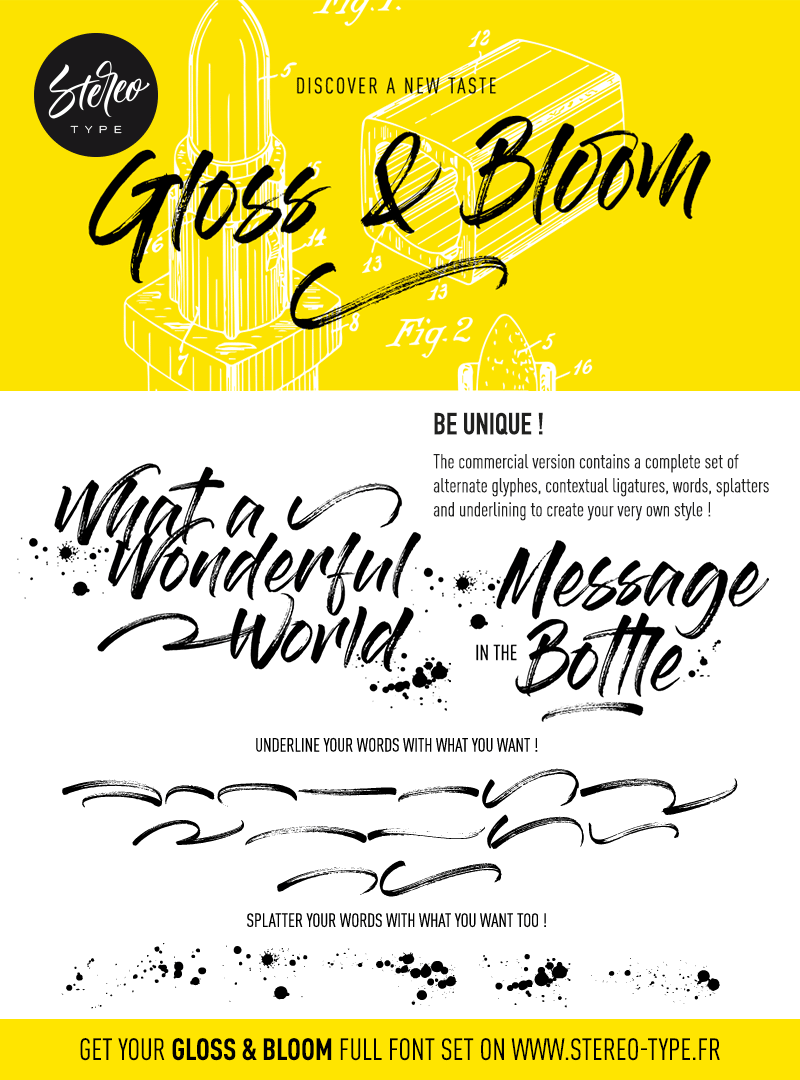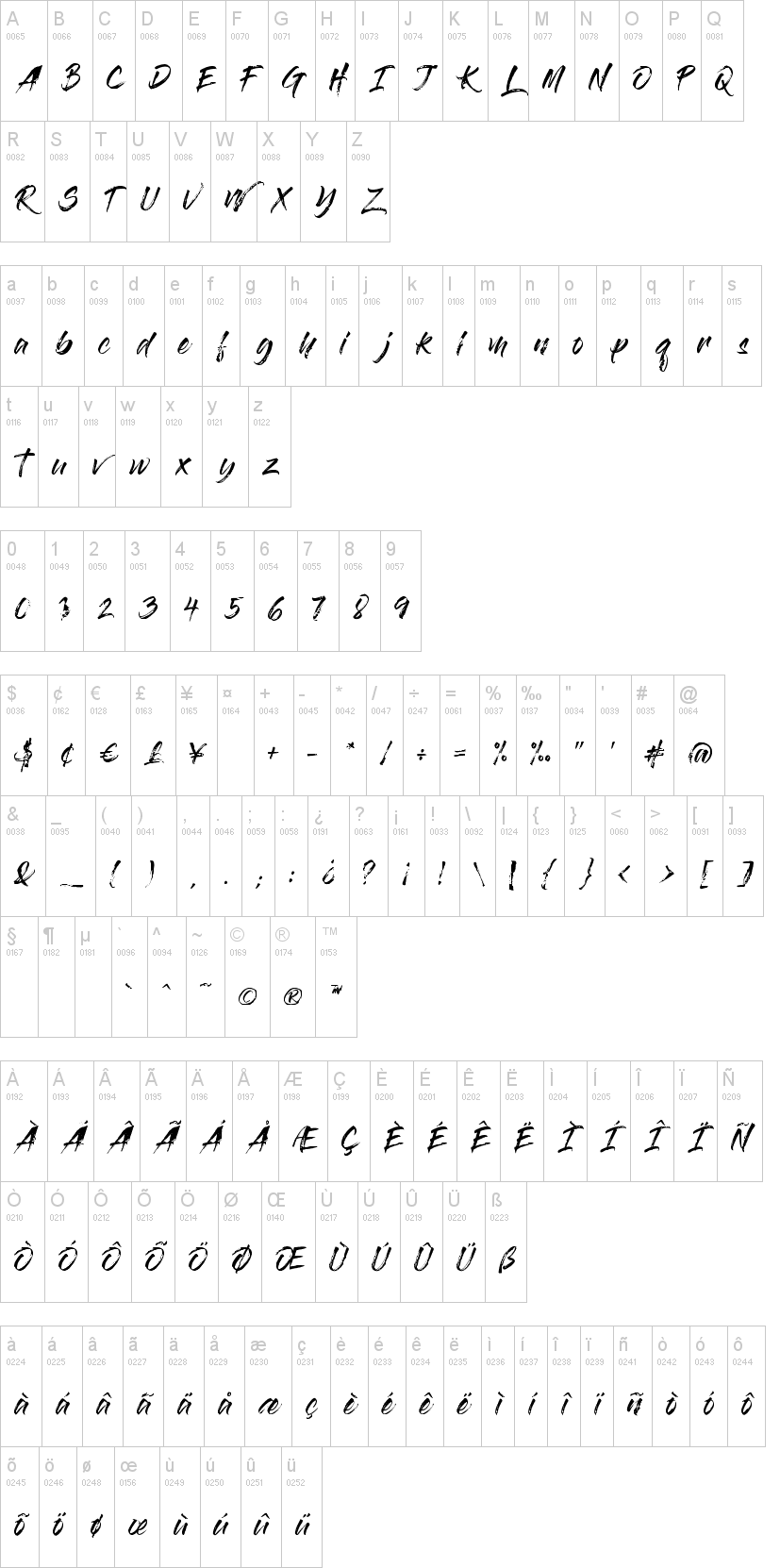
This font is made from the awesome work of Sean Delloro.
The commercial version contains a complete set of alternate glyphes, contextual ligatures, underlinings and splatters to create your own style!